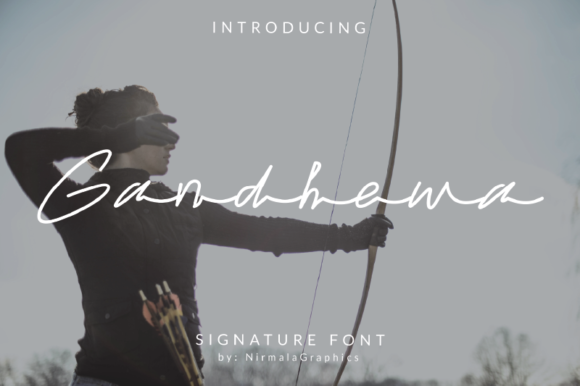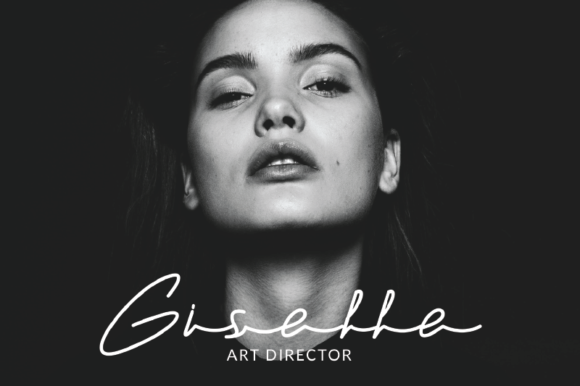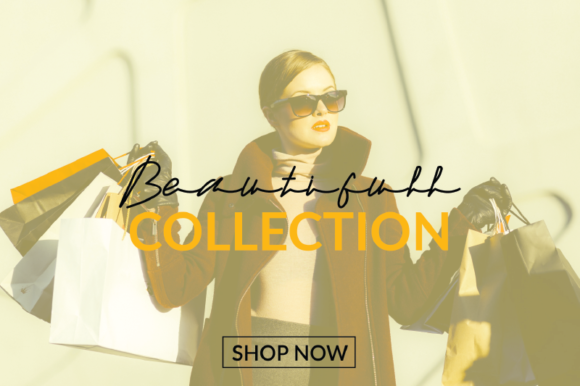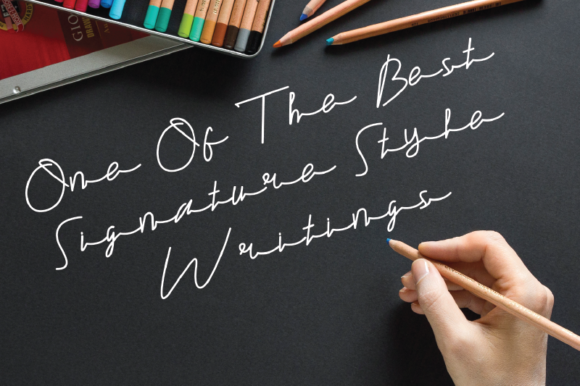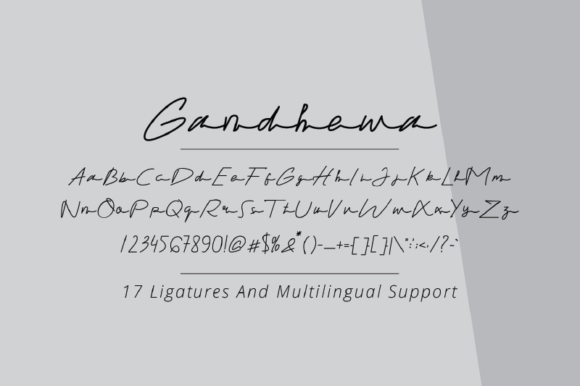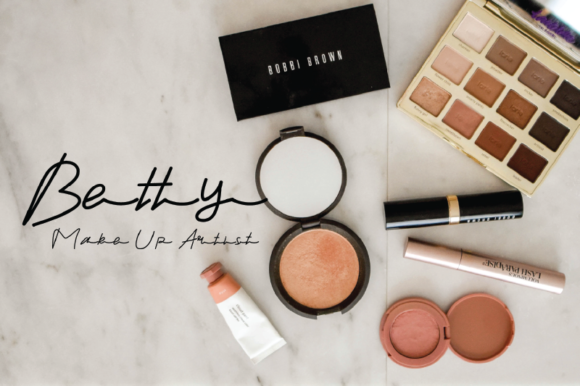
Gandhewa Font
About Gandhewa Font
Gandhewa was drawn from rough sketches on paper, using a ballpoint pen. This font is inspired by actual handwriting and delivers a natural, clean signature style. Gandhewa is fully equipped with 17 ligatures and multilingual support, which makes it a must-have!